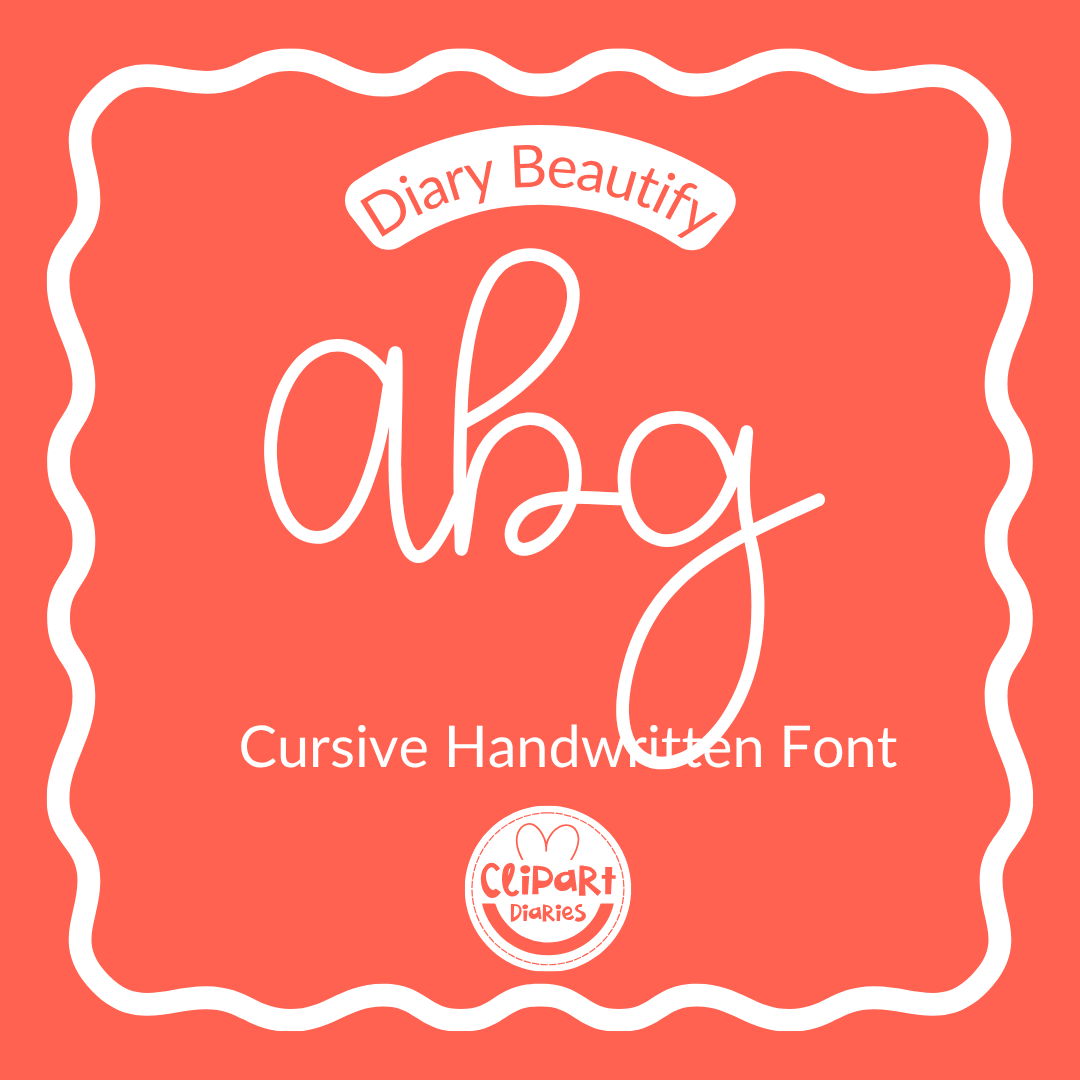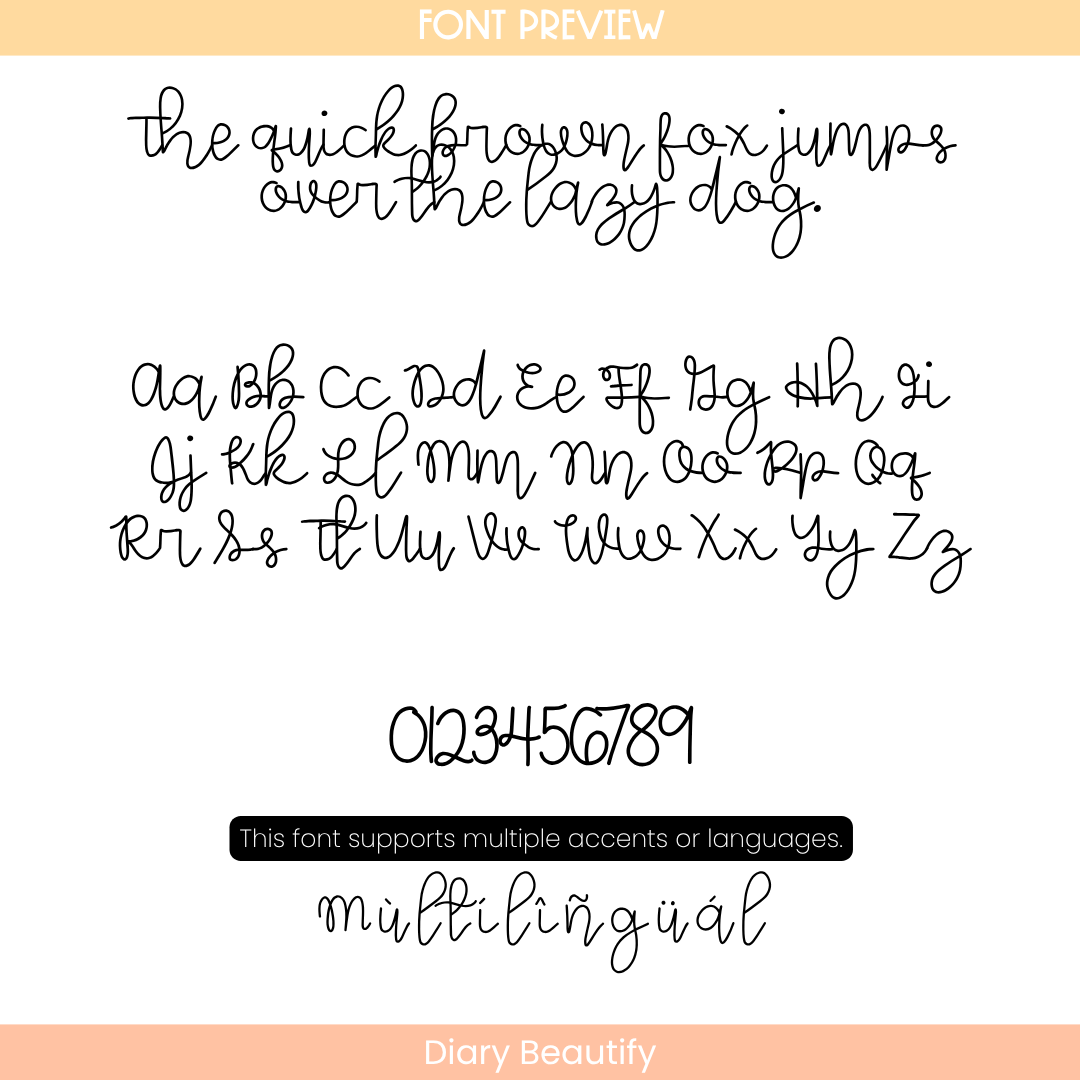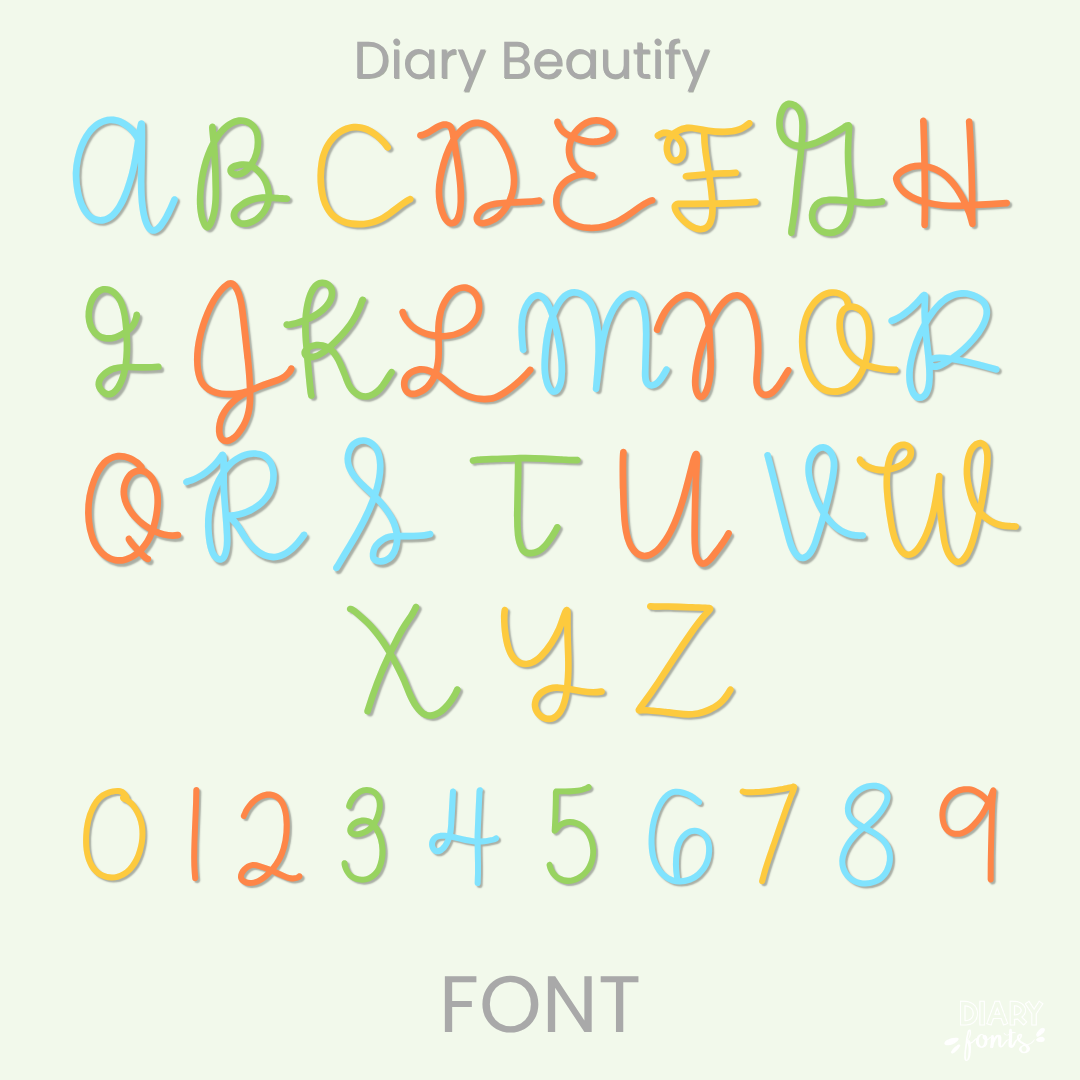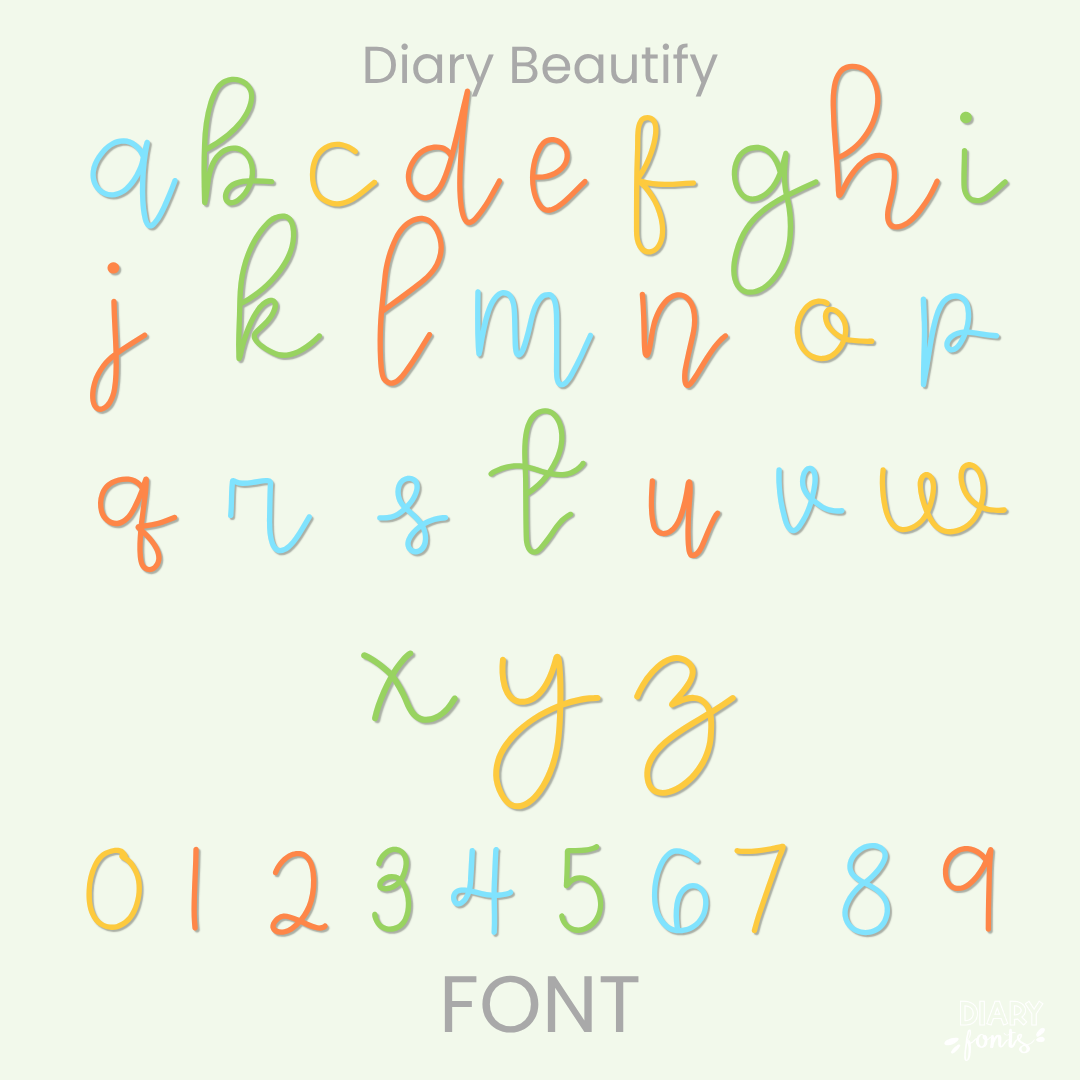
Enhance your creative designs with Diary Beautify, a cursive handwritten font that perfectly balances an artistic aesthetic with professional legibility. This comprehensive typeface includes a full set of uppercase and lowercase letters, numbers 0–9, and multi-language support for various accents, making it a versatile choice for global educational content. It is specifically engineered for seamless compatibility with major computer software like Canva, MS Office and Adobe Apps, as well as popular iPad applications like GoodNotes and Procreate. Whether you are creating elegant classroom decor, formal worksheets, or aesthetic digital planners, Diary Beautify offers a polished, hand-drawn look that is ideal for both personal and commercial use.